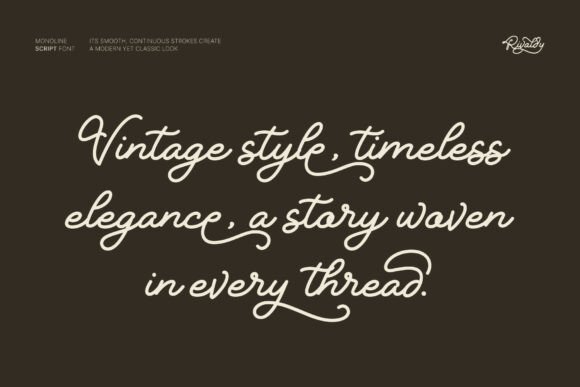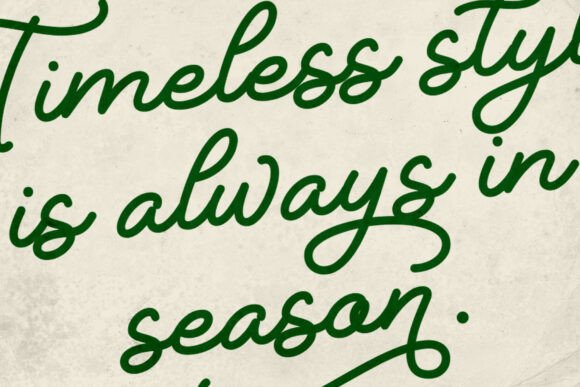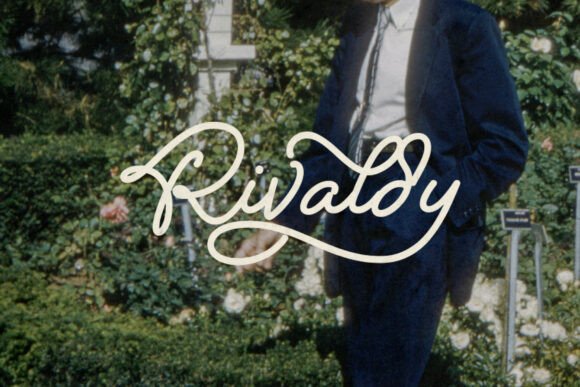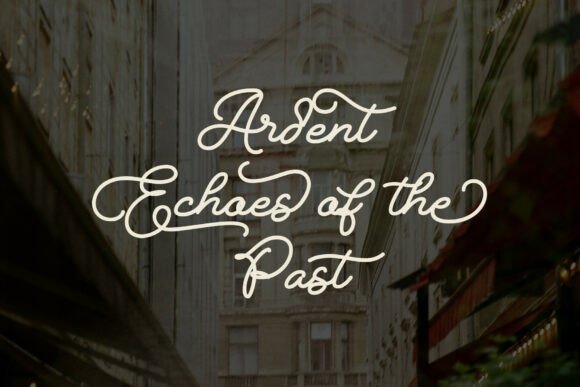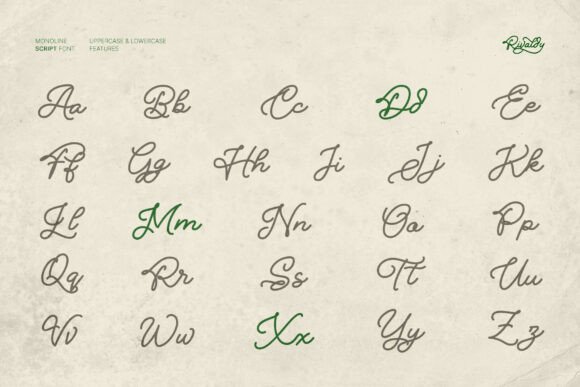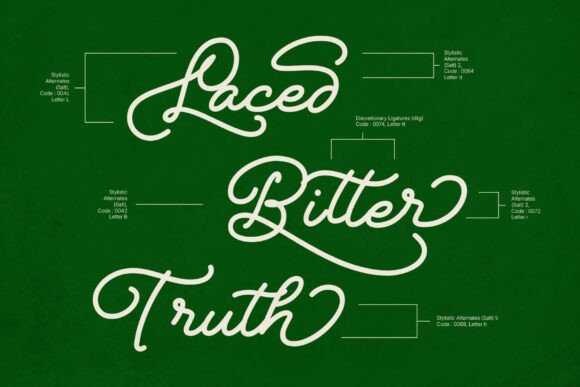
Introduction to Rivaldy Monoline Script Pro Font
Have you ever found yourself in the middle of a creative project, struggling to find the perfect font to bring your design to life? The blank page stares back at you, taunting you with its emptiness. But then, like a breath of fresh air, you stumble upon the Rivaldy Monoline Script Pro Font – a stylish monoline script font that brings retro charm with a smooth, flowing stroke.
As a designer, you know the value of having the right design resource at your fingertips. The Rivaldy Monoline Script Pro Font is a high-quality addition to your arsenal, perfect for logos, signage, t-shirt designs, and vintage-inspired branding. Its connected letters and elegant swashes make it ideal for adding a handwritten touch to any creative project.
Key Features of Rivaldy Monoline Script Pro Font
- High-quality design resource ideal for creative projects requiring elegant and sophisticated typography.
- Transparent background and customizable color options for flexibility in design.
- Designed to be highly legible, with a unique monoline script style that adds a touch of sophistication to any design.
Honest Review: Rivaldy Monoline Script Pro Font
As a designer, I’m always on the lookout for high-quality design resources to elevate my creative projects. Recently, I stumbled upon the Rivaldy Monoline Script Pro Font, and I’m excited to share my thoughts on it.
Here’s what works well: ✨ The font is incredibly versatile and can be used for a wide range of projects, from logos and branding to wedding invitations and social media graphics. The script style is elegant and sophisticated, making it perfect for high-end designs. Additionally, the font is available for free download, which is a huge plus for designers on a budget.
- High-quality design with a transparent background
- Perfect for creative projects requiring a touch of elegance
However, there are a few limitations to consider: ⚠️ The font is not suitable for large blocks of text, as the script style can be difficult to read in extended passages. Additionally, the font may not be compatible with all design software, so be sure to test it before using it in a project.
Overall, I’m impressed with the Rivaldy Monoline Script Pro Font. It’s a high-quality design resource that can add a touch of sophistication to any creative project. While it may have a few limitations, I believe it’s a valuable addition to any designer’s toolkit.
Tips for Getting the Most Out of Rivaldy Monoline Script Pro Font
For the best results, use the Rivaldy Monoline Script Pro Font on a transparent background to create a clean and elegant look. This font is perfect for creating invitations, logos, and other design elements that require a touch of sophistication.
The Rivaldy Monoline Script Pro Font is ideal for creative projects that require a high-quality, elegant touch. Some common use cases include: